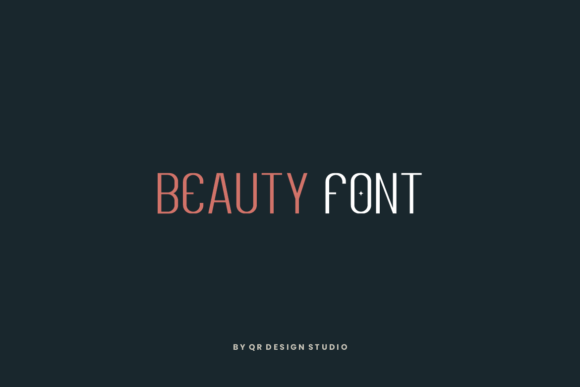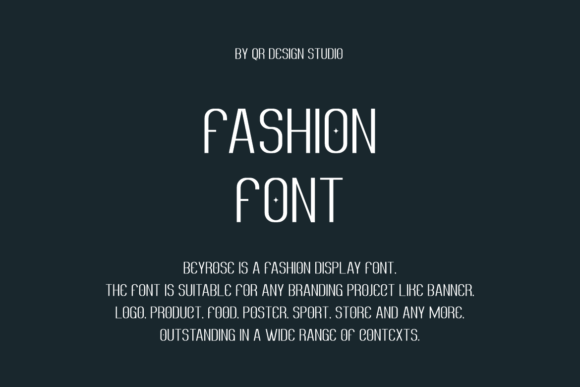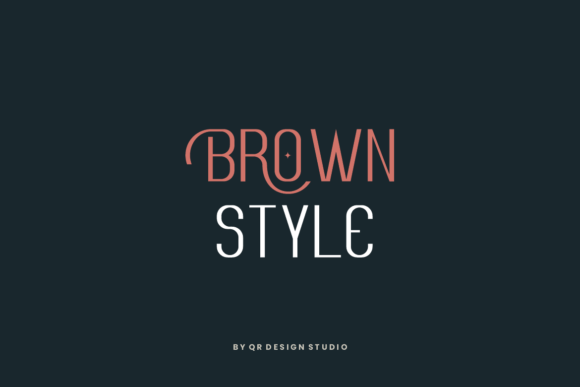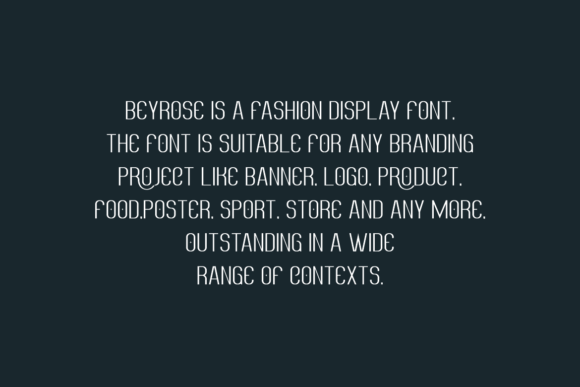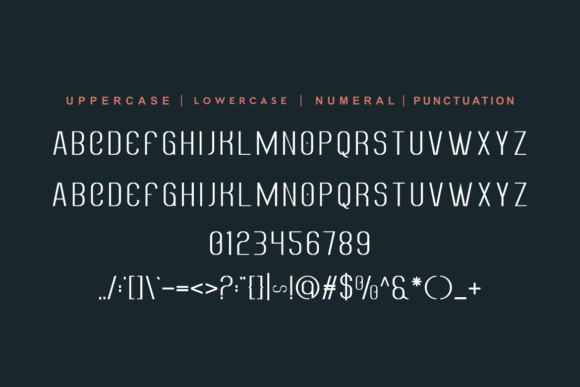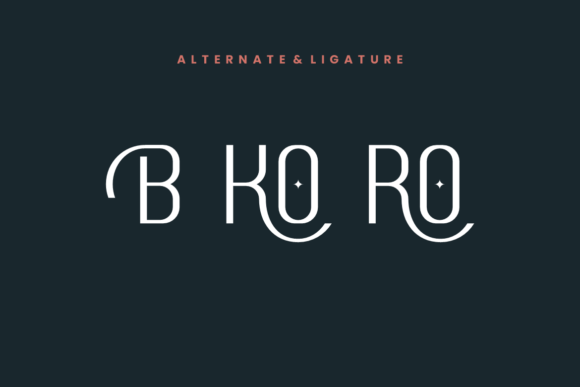
The Perfect Touch of Elegance: Introducing the Beyrose Font
Have you ever stared at a blank canvas, waiting for inspiration to strike, only to have it hit you like a ton of bricks when you stumble upon the perfect font? That’s exactly what happened to me when I discovered the Beyrose Font. Its delicate curves and sleek lines instantly elevated my project from ordinary to extraordinary.
The Beyrose Font is a sophisticated typeface designed to add a touch of luxury to any design. Whether you’re creating invitations, posters, or social media graphics, this font is sure to make your project stand out. Its versatility and elegance make it a valuable asset for designers looking to take their work to the next level.
Beyrose Font Key Features
- Font Family: Beyrose is a sans-serif font family.
- Unique Characteristics: Beyrose features a clean and modern design with a subtle rounded edge, making it ideal for corporate and business applications.
Beyrose Font Review
I recently had the chance to work with the Beyrose font, and I’m excited to share my thoughts on it.
- Unique Character: The Beyrose font has a distinctive look that sets it apart from other serif fonts. Its combination of traditional and modern elements makes it a great choice for designers looking to add some visual interest to their work.
- Legibility: Despite its quirky design, the font is surprisingly legible, making it a great option for body text or headlines.
- Customization Options: The font includes a range of customization options, including ligatures and swashes, which can help to add some personality to your design.
- Limited Font Sizes: The font may not be the best choice for very large or very small font sizes, as it can become difficult to read at these scales.
- Not Suitable for All Text Types: While the font is great for body text or headlines, it may not be the best choice for text that requires a more formal or traditional look.
Overall, I think the Beyrose font is a great addition to any designer’s toolkit. While it may have some limitations, its unique character and customization options make it a great choice for designers looking to add some personality to their work.
To get the most out of Beyrose font, use it for:
- Creative titles and headings.
- Quote overlays and graphics.
- Any design where a unique, elegant font is needed.
For best results, pair Beyrose with a clean and simple design to let the font shine.
Alternatives to Beyrose Font
Playfair Display is a high-end, elegant serif font suitable for luxury branding, high-end fashion, and sophisticated designs. It has a classic, vintage feel and is ideal for creating a sense of opulence and sophistication. Compared to Beyrose Font, Playfair Display is more formal and traditional, making it a better choice for high-end branding and marketing materials.
Pacifico is a beautiful, cursive script font perfect for creating a warm and inviting atmosphere. It’s ideal for use in branding, advertising, and packaging design, particularly for businesses in the food, beverage, and hospitality industries. In comparison to Beyrose Font, Pacifico is more casual and relaxed, making it a better choice for creating a friendly and approachable brand image.
Great Vibes is a modern, elegant script font that exudes a sense of sophistication and style. It’s suitable for use in branding, advertising, and packaging design, particularly for businesses in the fashion, beauty, and lifestyle industries. Compared to Beyrose Font, Great Vibes is more refined and polished, making it a better choice for creating a high-end brand image.
Carolyna Pro is a modern, elegant script font that’s perfect for creating a sense of luxury and sophistication. It’s suitable for use in branding, advertising, and packaging design, particularly for businesses in the fashion, beauty, and lifestyle industries. In comparison to Beyrose Font, Carolyna Pro is more refined and polished, making it a better choice for creating a high-end brand image.